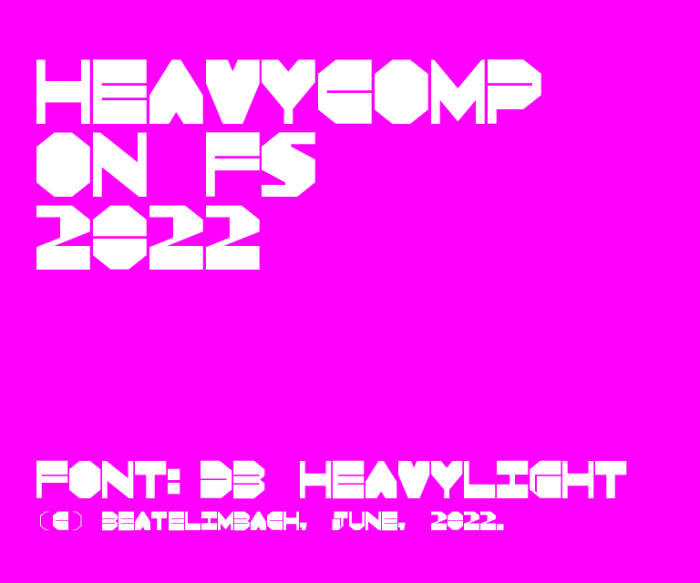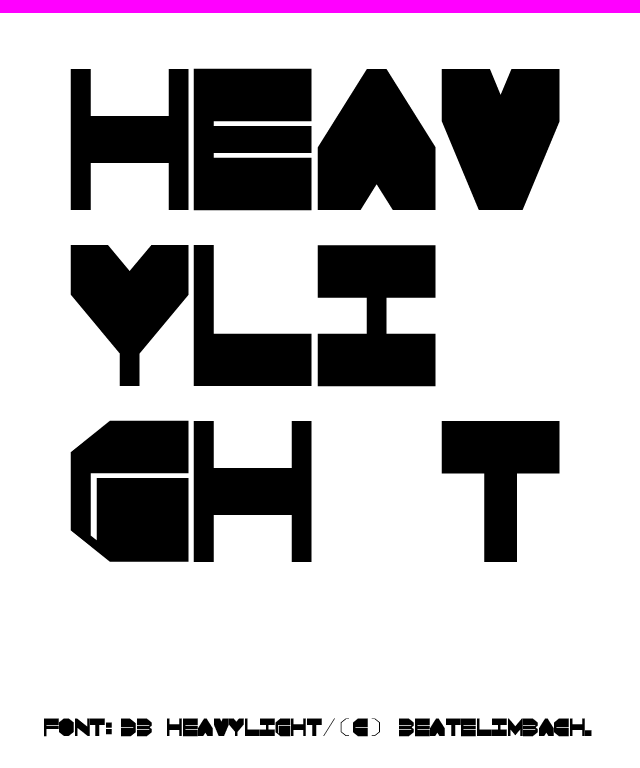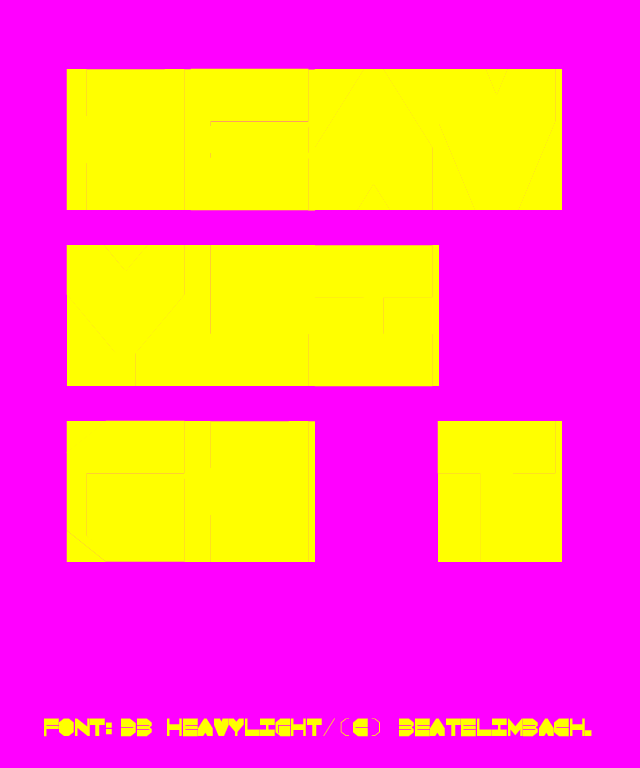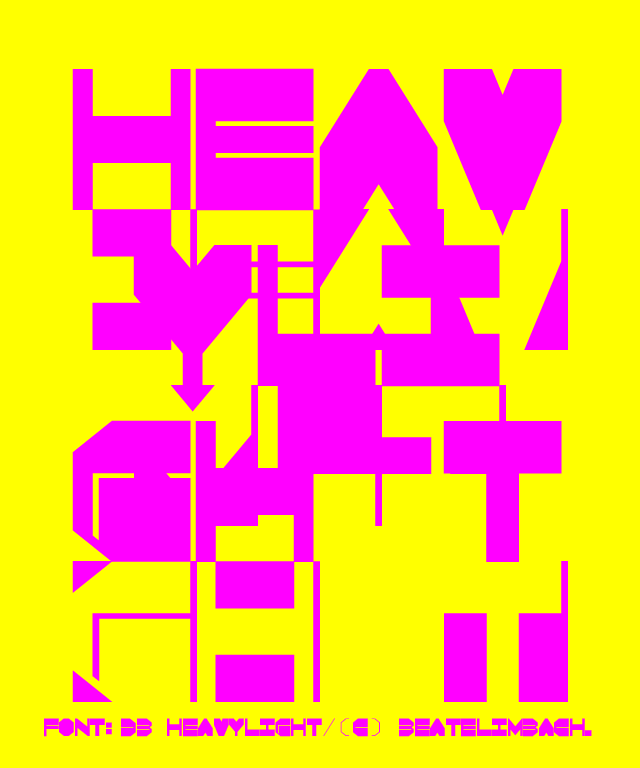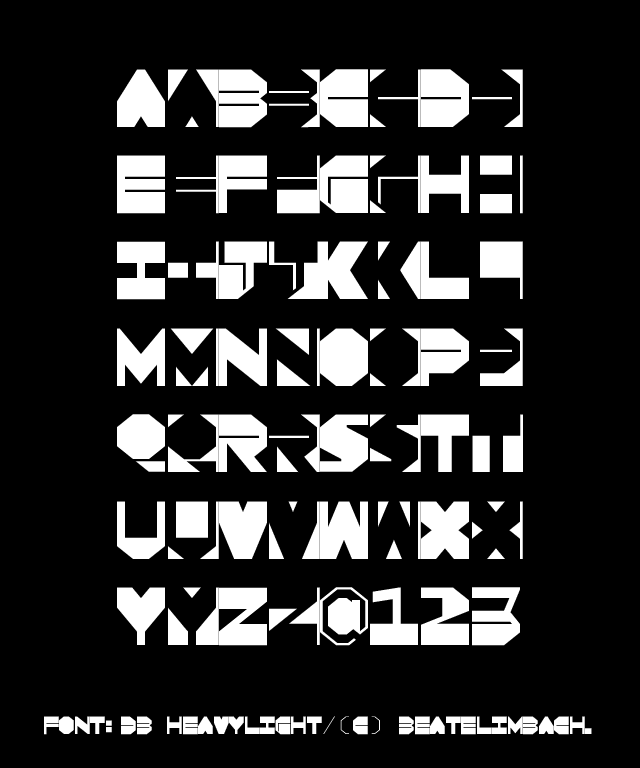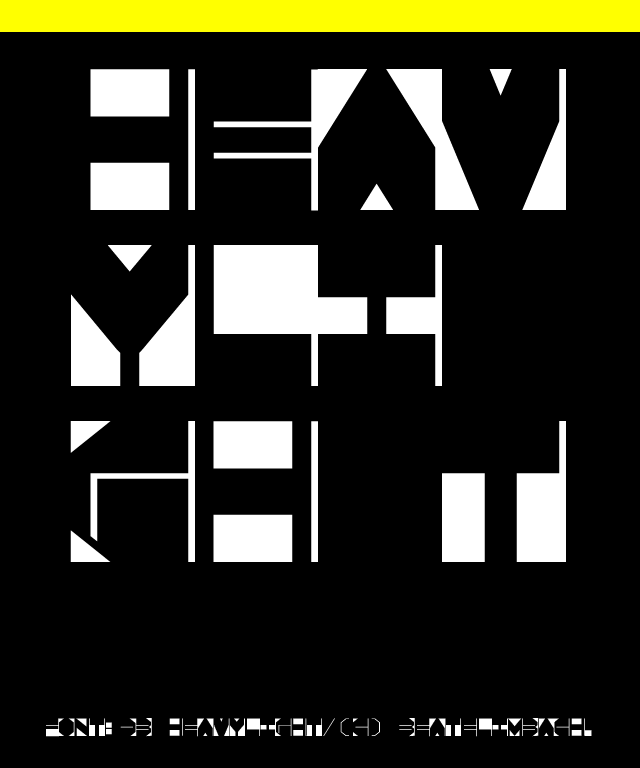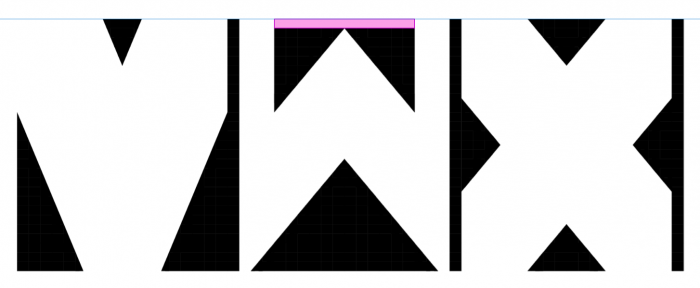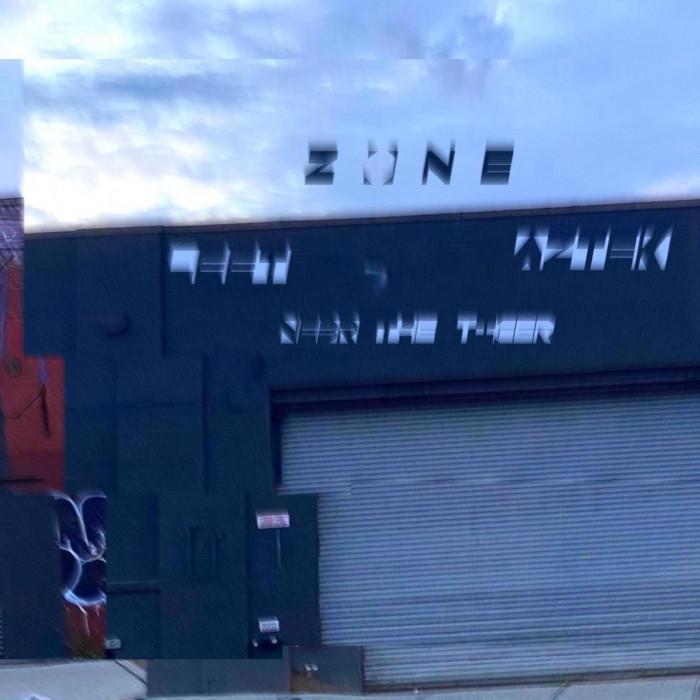
Please tell me what you think of this, rather than bashing everything with half a star, as you like to rigorously do with all our / my lovingly created FontStructures…
Authentic eye-catching glyphs, Maestra! Very unexpected option, I especially like the mobility offered by the white spaces between letters.
Alternating upper and lower case gives lots of scope to play with postive and negative space. I love how you have layered it to make a near abstract compostion in the yellow sample.
Your knack for what the characters should look like is scary good. I'm always, always impressed.
Lovely futuristic typeface, the inverted version of the letters works really well, it's an ingenious solution. As always your fonts are top for me.
Alternating black and white characters, and playing with "white" space; it's a great idea. These letters look trendy. Honestly, I better say no more, as I don't fully understand your design. 10/10
This font proves how versatile and capable you are as a type designer. Your works usually only leave me speechless, but this time the cold, brutalist style is what warms my heart. That, and the very fitting inverted lowercase. Just wow. Well deserved winner.
Is it just me or does the X look a bit lower than the rest of the letters?
Yup, seems the glyph is one row lower than the others!
@dear beate: I think you could add a little black rectangle on the top side of the w to even it out with the rest, IMHO.
@elmo oups! I fixed.
@BWM Thanks for the hint, the x has moved down one line ; )
Your font was featured in an album cover!
wait... so this font is so popular by 1st in the competition, that even the font appears...       IN AN ALBUM‽‽‽
The way the letters combined in the third sample definetly reminds me of one of my fonts, Punycone.
B likes "3". lol
amazing work! straight from the FUSE influence <3